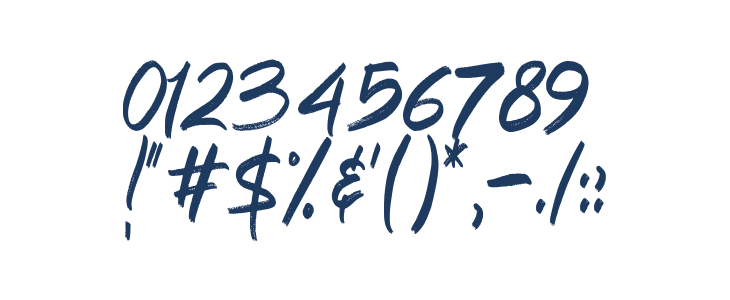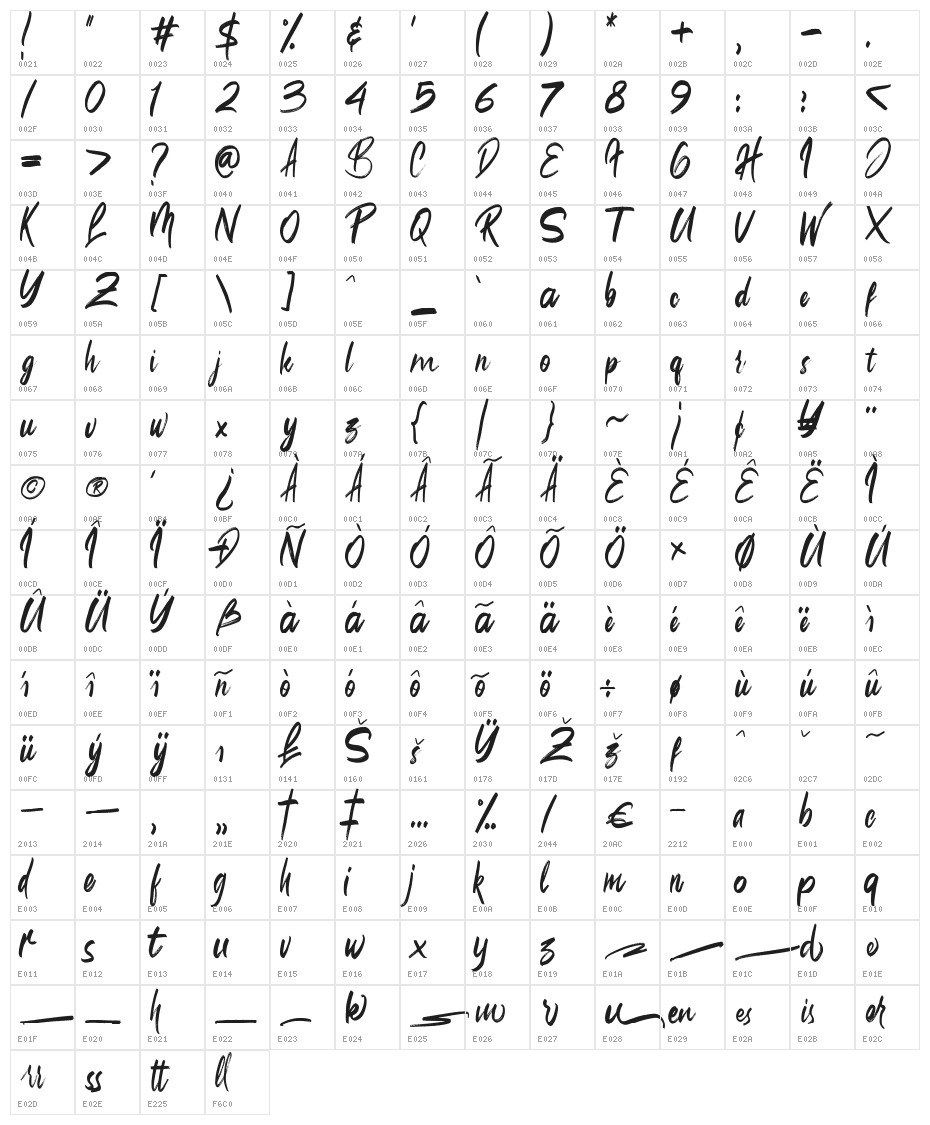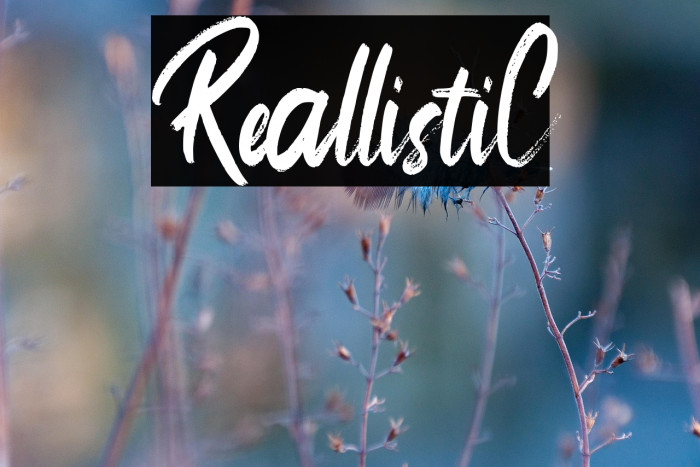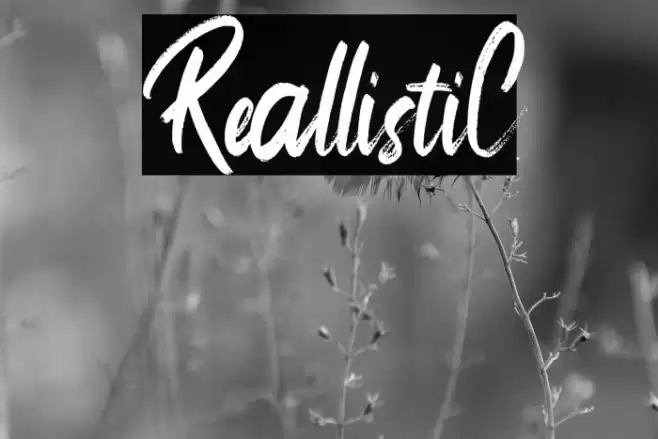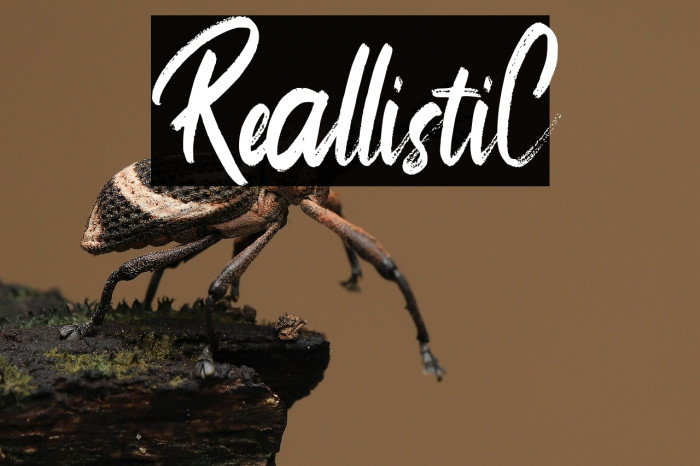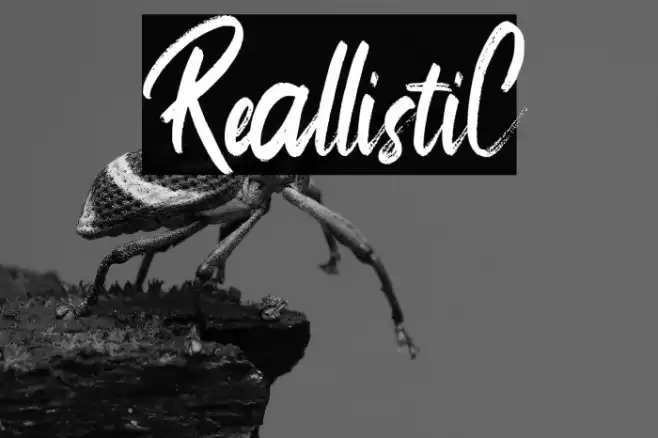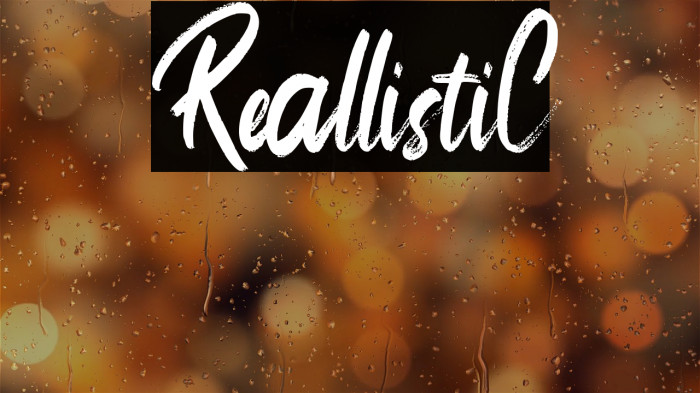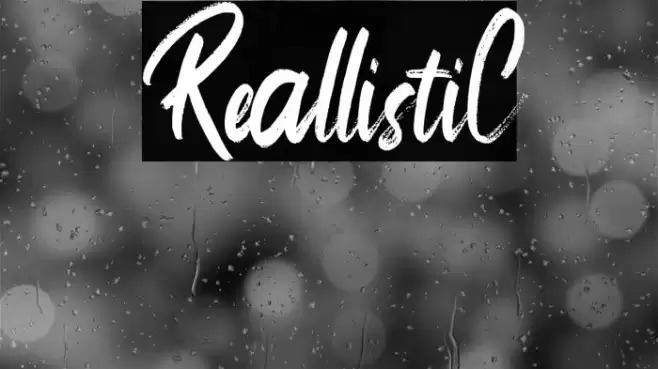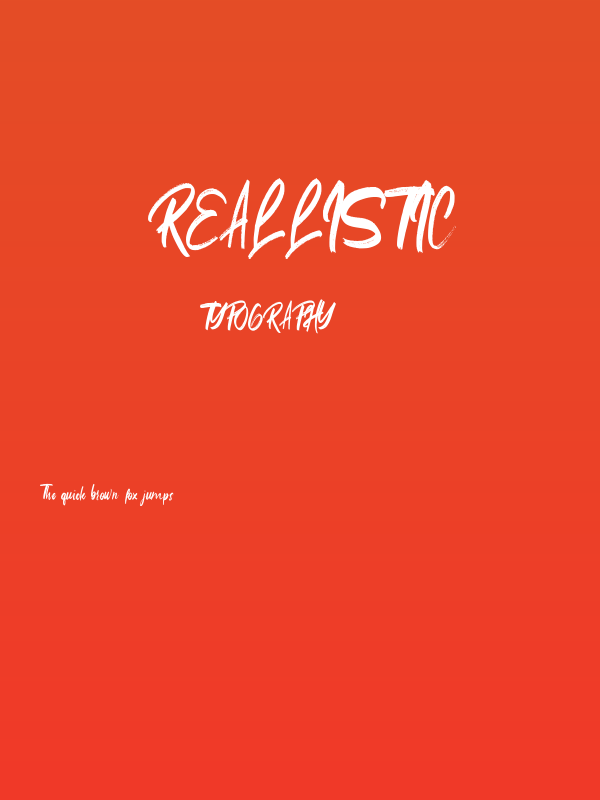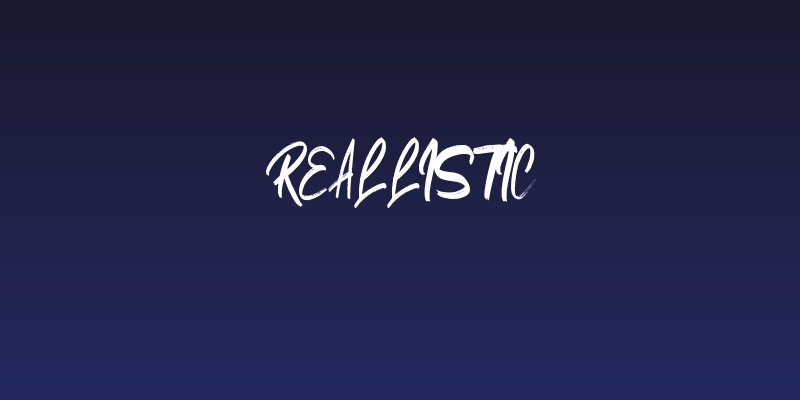
ReallistiC Font
ReallistiC Description
This font features a dynamic and expressive handwritten style, characterized by bold, sweeping strokes and a slightly textured appearance. The uppercase letters are tall and slightly slanted, giving a sense of movement and energy. Lowercase letters maintain a consistent flow, with some letters extending below the baseline, adding to the casual, yet artistic feel. Numbers and special characters are crafted with the same boldness, ensuring uniformity across all characters. The overall aesthetic is modern and edgy, making it suitable for projects that require a personal touch or a statement piece.
| Proposed Projects | Ideal for branding, posters, social media graphics, and any design needing a personal, artistic touch. |